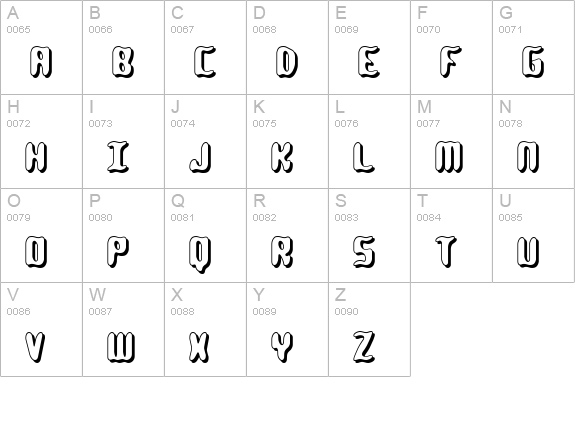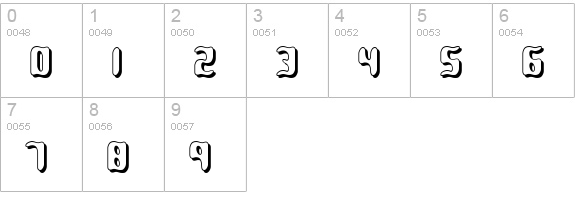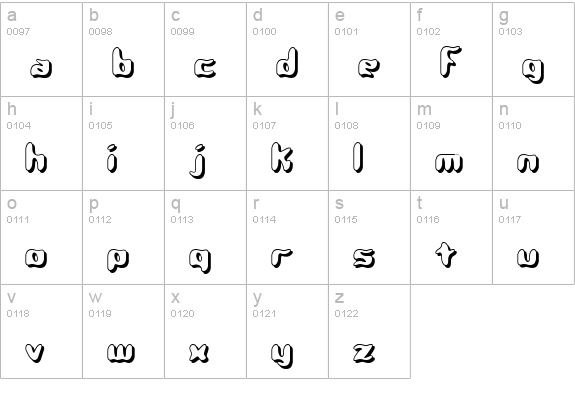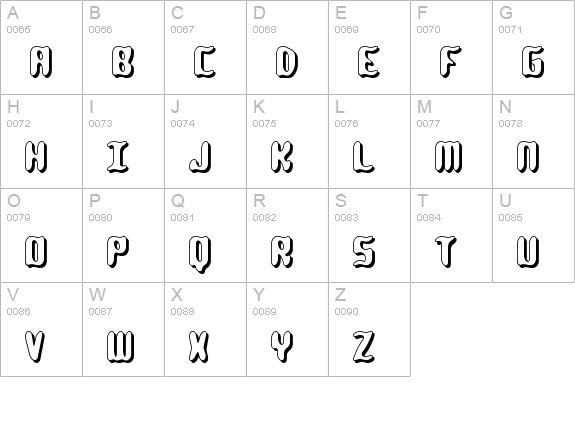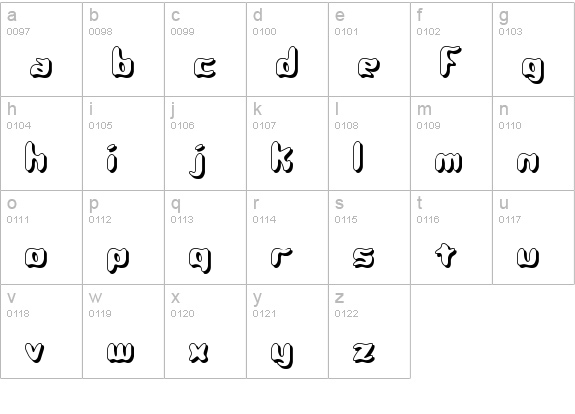
Qlumpy Shadow -BRK- Font Details
Qlumpy Shadow -BRK- is a unique and eye-catching font that is sure to make a statement in any design project. With its bold and playful letterforms, this font adds a touch of whimsy and fun to any text. But what sets Qlumpy Shadow -BRK- apart is that it is not only visually appealing, but it is also free! Yes, you read that right. This incredible font is freely available to download at FontsMarket.com. Whether you are a designer working on a commercial project or a student looking for a font to spruce up your presentations, Qlumpy Shadow -BRK- is the perfect choice. Its versatility makes it suitable for a wide range of applications, from posters and logos to social media graphics and web design. The attention to detail in Qlumpy Shadow -BRK- is evident in its beautifully crafted characters. Each letter has a distinct, hand-drawn quality, with subtle shadows that add depth and dimension to the text. The uneven edges and irregular shapes give the font a charming and organic feel, making it stand out from the crowd. Qlumpy Shadow -BRK- is not just a font, it is a creative tool that allows you to bring your ideas to life. Its bold and dynamic presence commands attention, making it ideal for headlines and titles. Meanwhile, its legibility ensures that your message is always clear and easily readable. So why wait? Discover the power of Qlumpy Shadow -BRK- and unleash your creativity today. Download this amazing font for free at FontsMarket.com and take your designs to the next level.